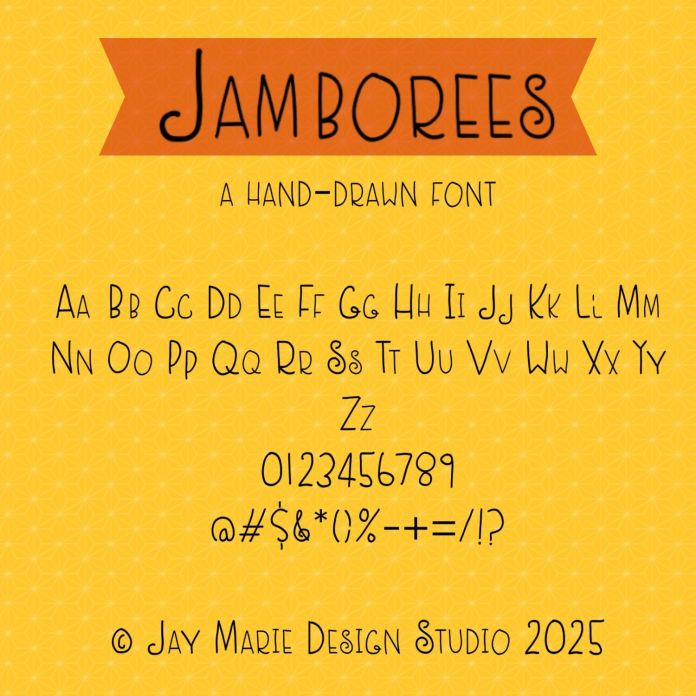
Jamborees is a playful and whimsical hand-drawn font that exudes fun and creativity. Its unique lettering style adds a touch of personality to any design project. Perfect for posters, invitations, and social media graphics, Jamborees will make your text stand out with its charming and trendy look.